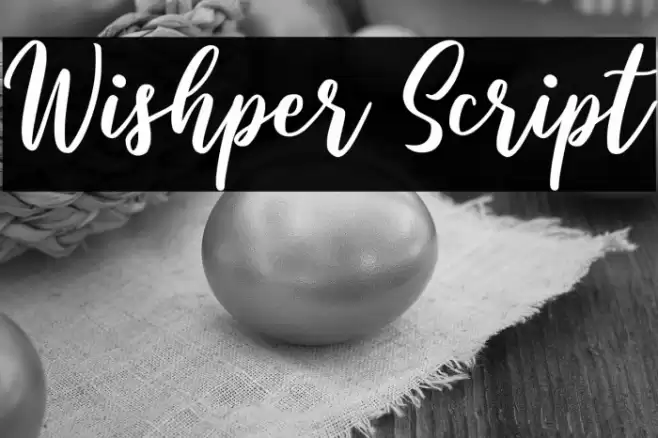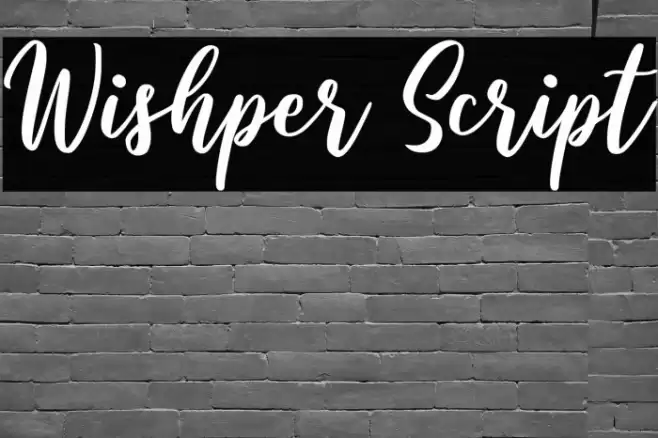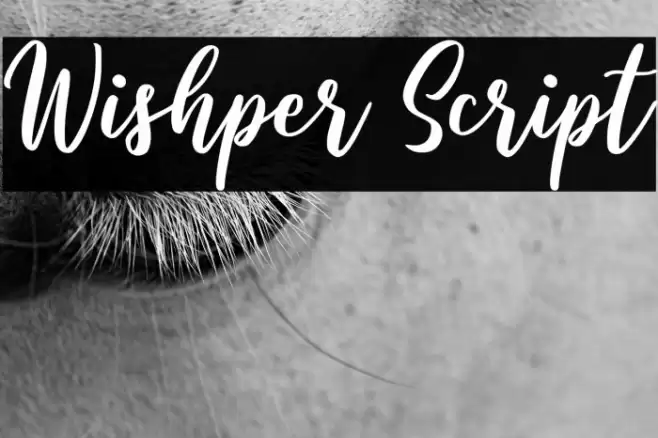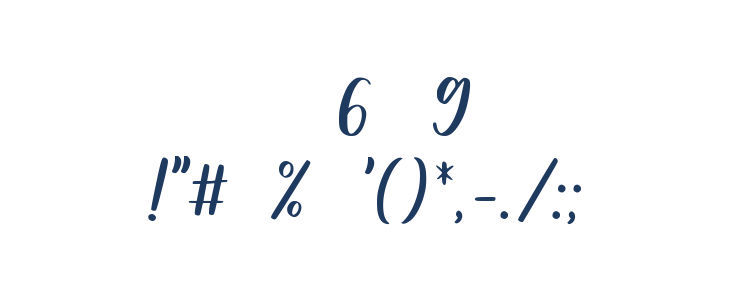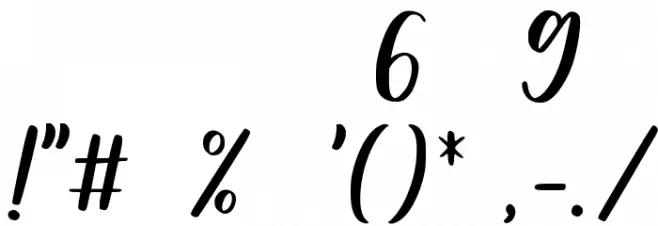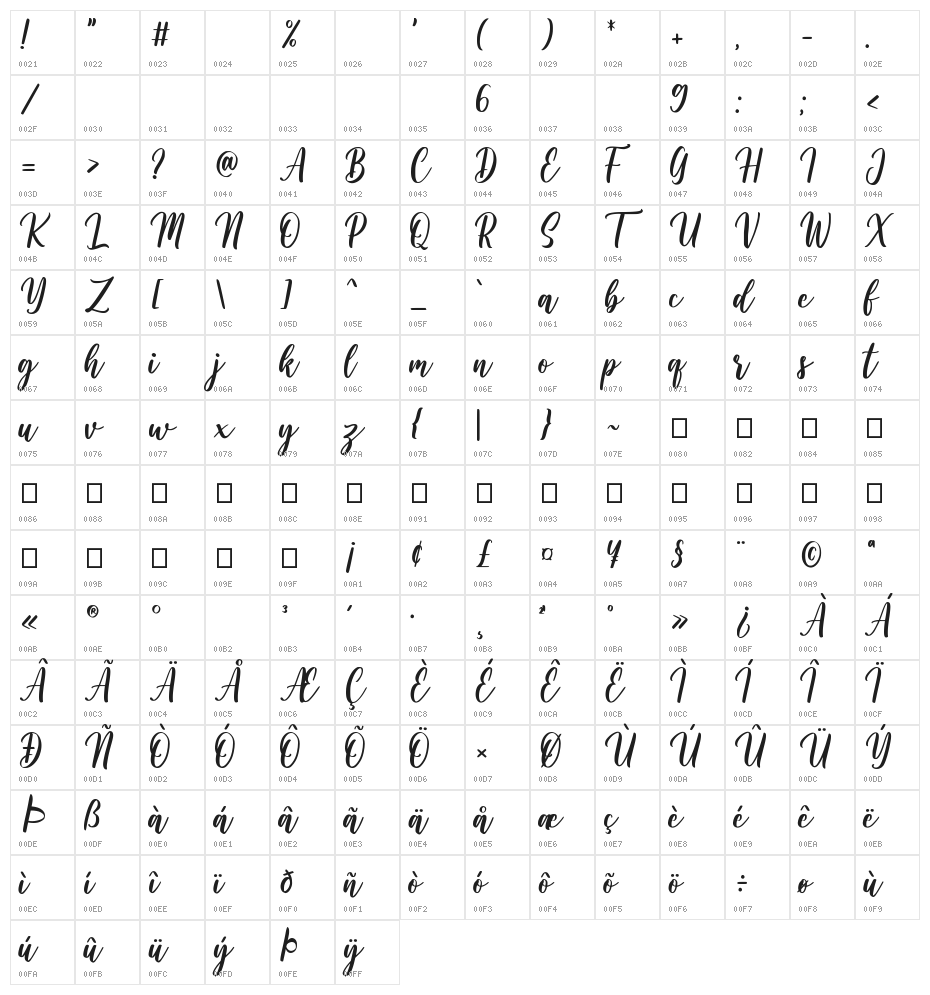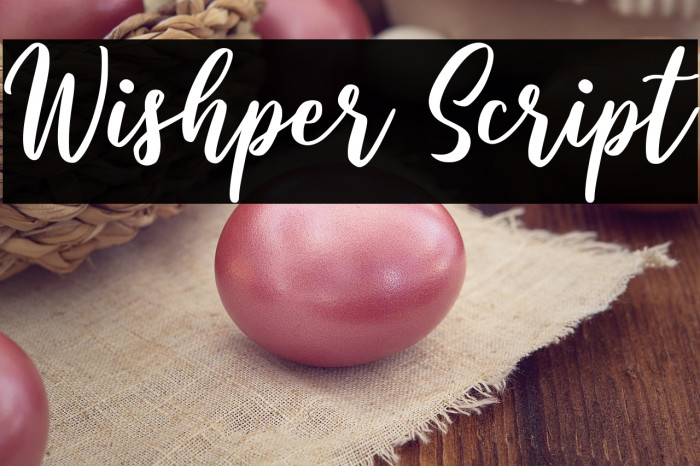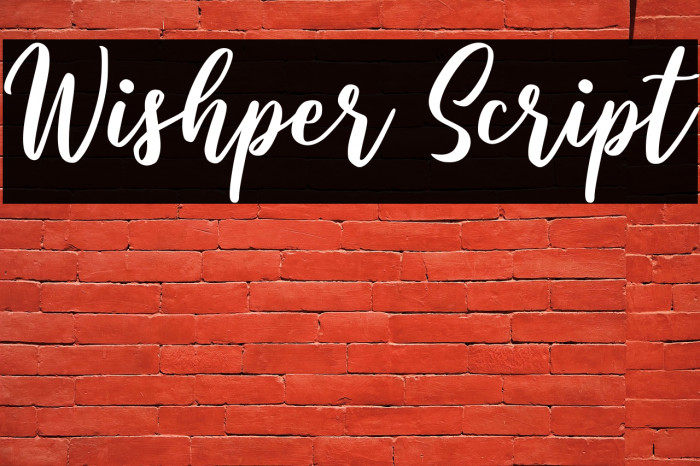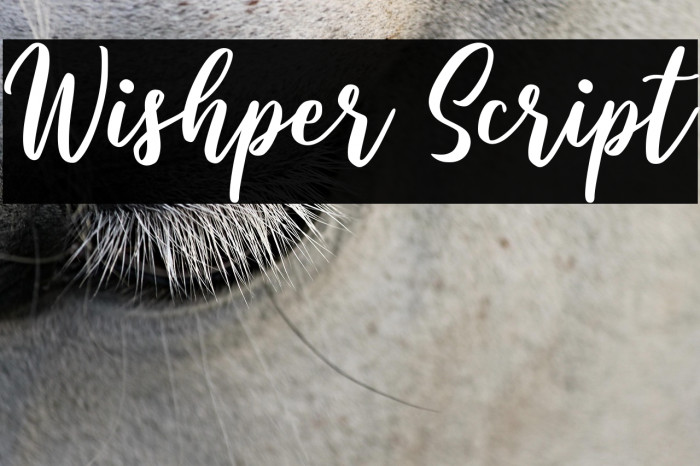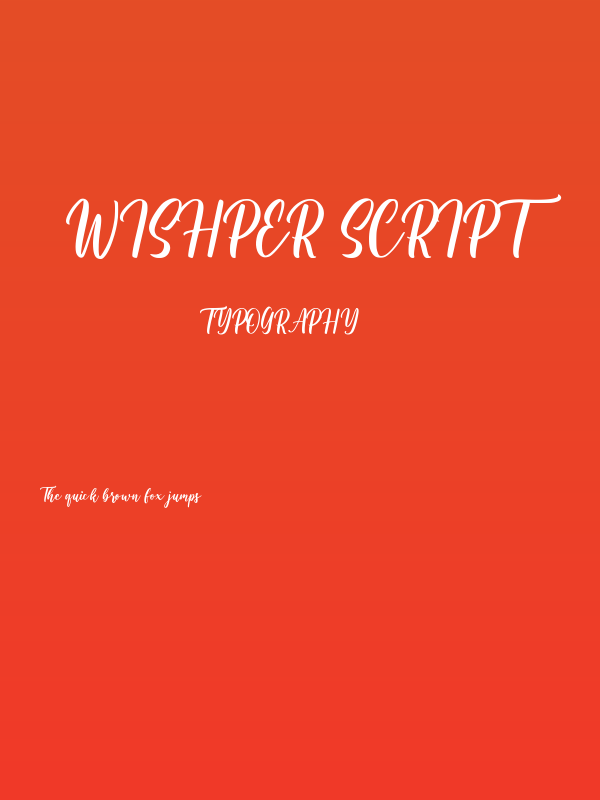
Wishper Script Font
Wishper Script Description
This elegant script font features a flowing, cursive style with smooth, connected strokes that give it a handwritten appearance. The uppercase letters are tall and graceful, while the lowercase letters maintain a consistent flow, enhancing readability. The font exhibits a balanced contrast between thick and thin strokes, adding to its sophisticated look. The numerals and special characters are designed to match the overall aesthetic, making it versatile for various design needs. Its decorative nature makes it suitable for projects that require a personal touch.
A graceful script font with flowing, connected strokes and balanced contrast from Regular fonts.
- Proposed Projects: Ideal for wedding invitations, greeting cards, branding, and elegant logo designs.
- Overall Style: Elegant, Decorative
- Use Case: Headlines, Invitations, Logos